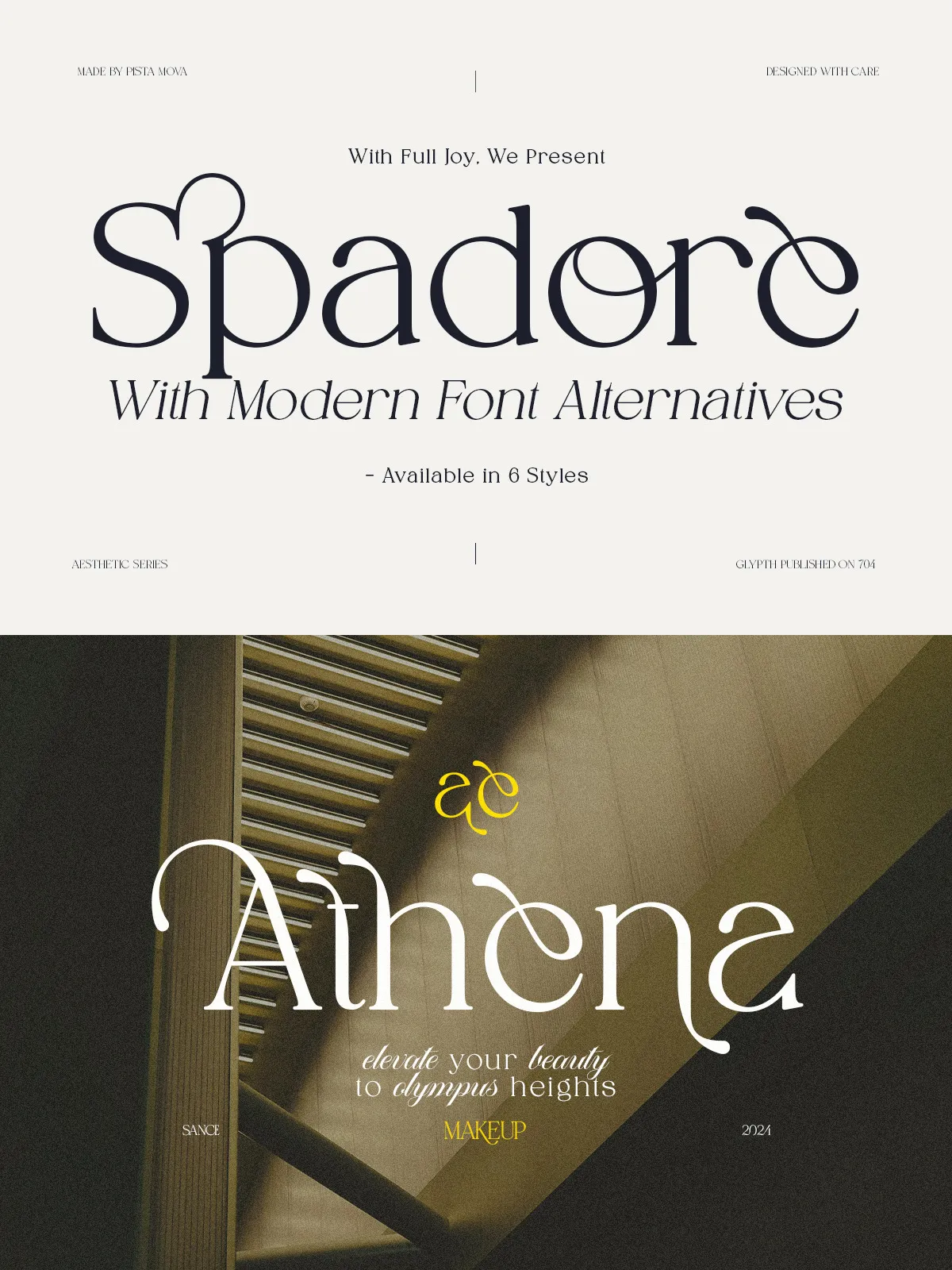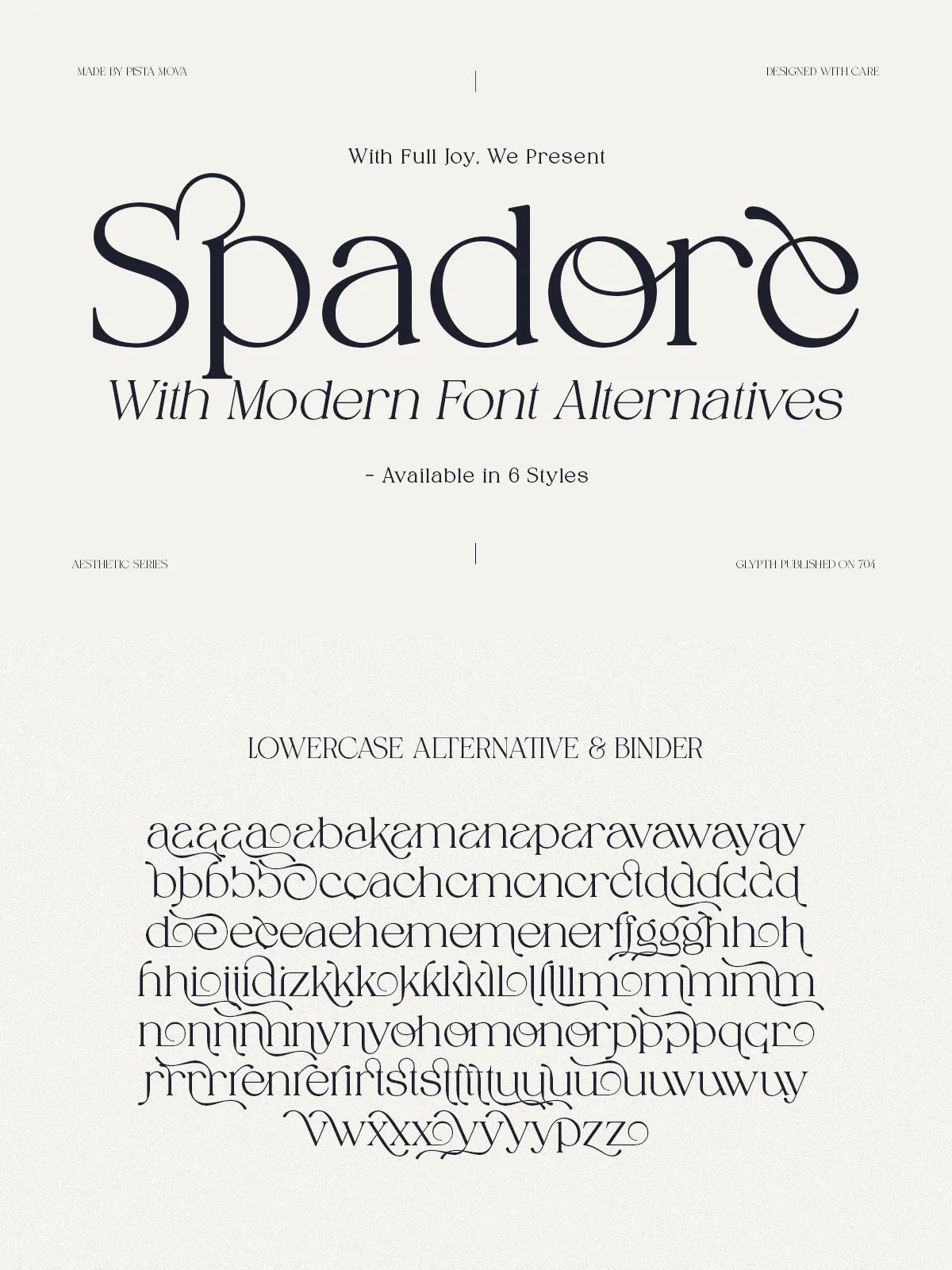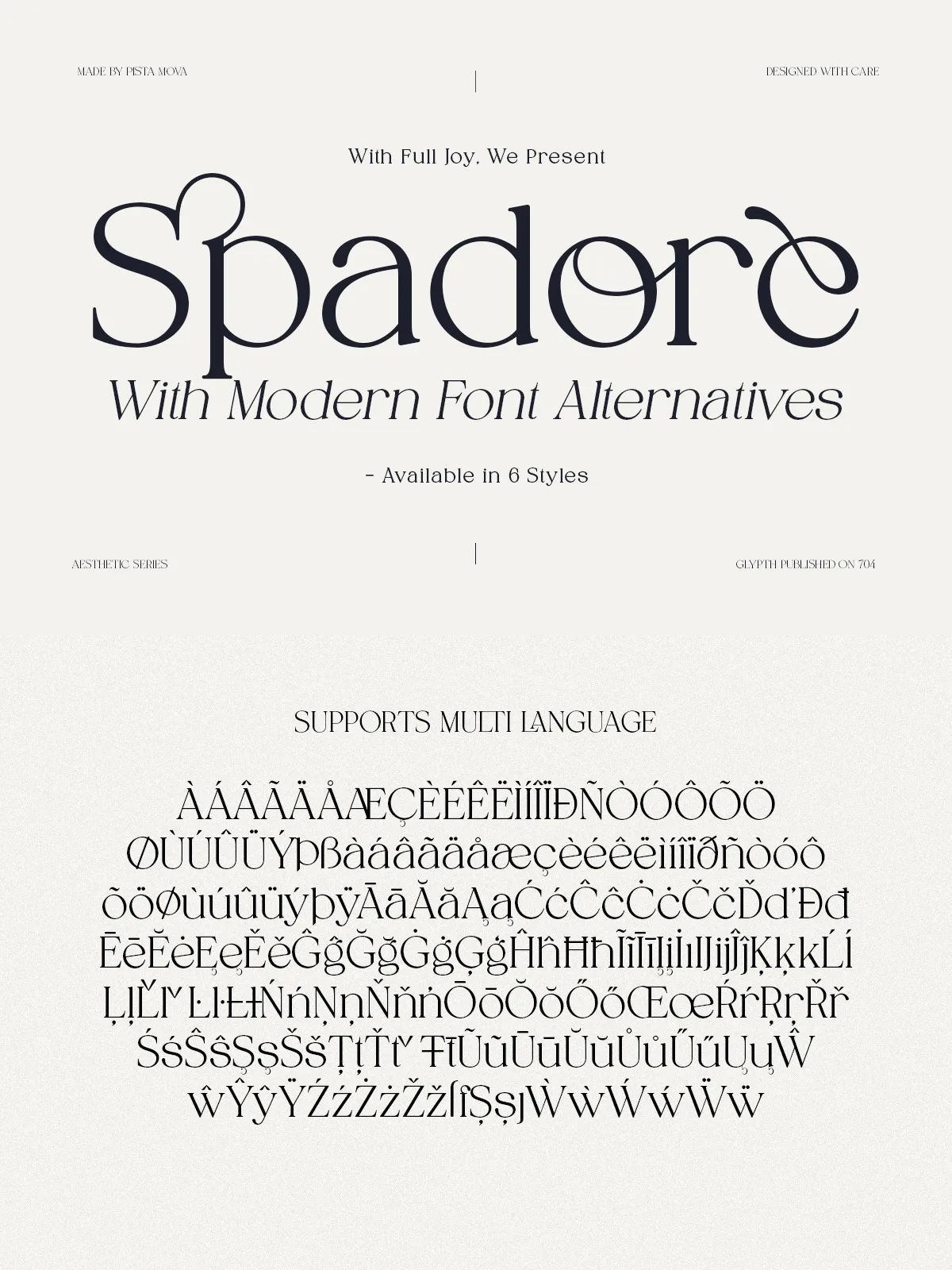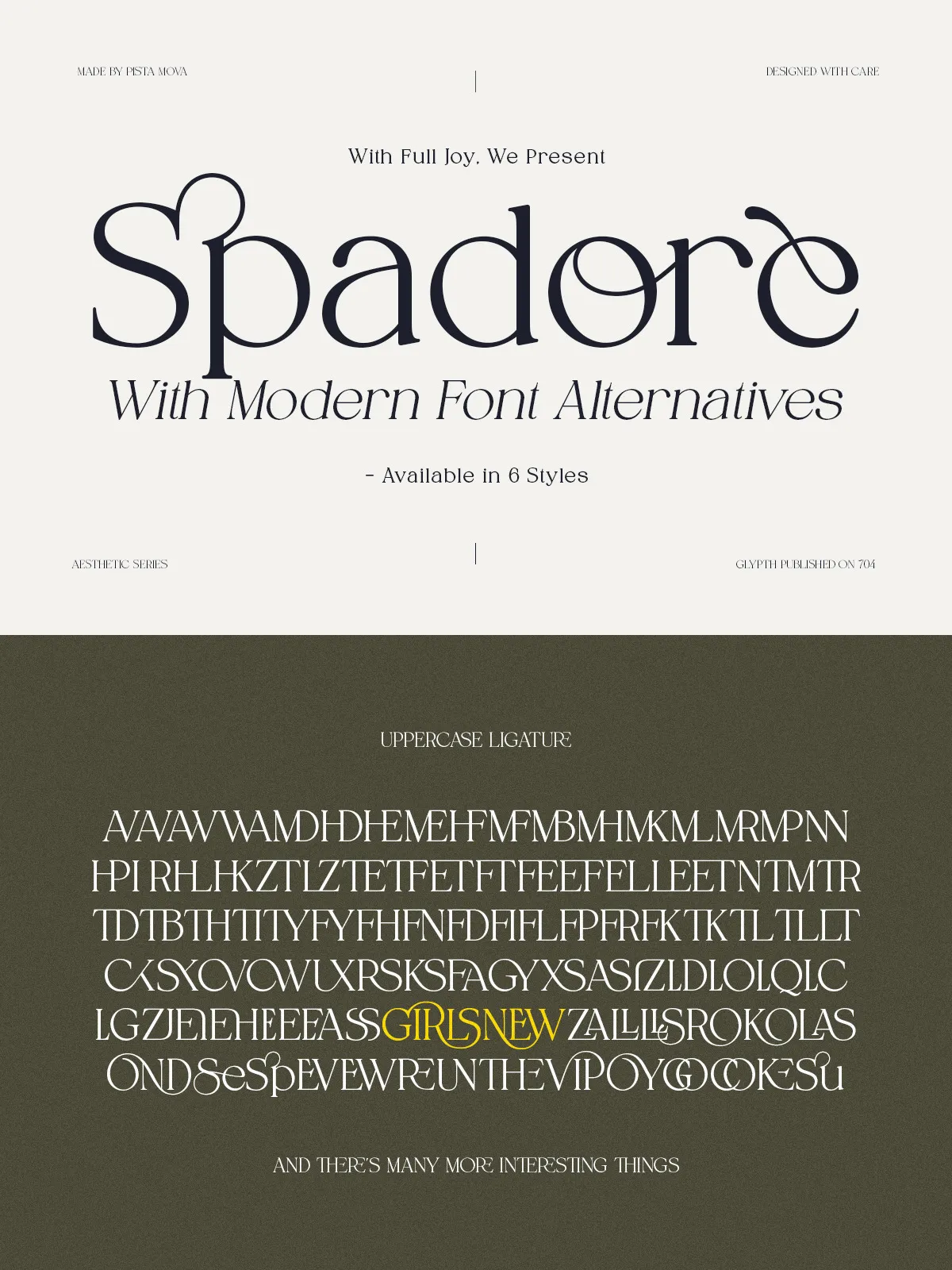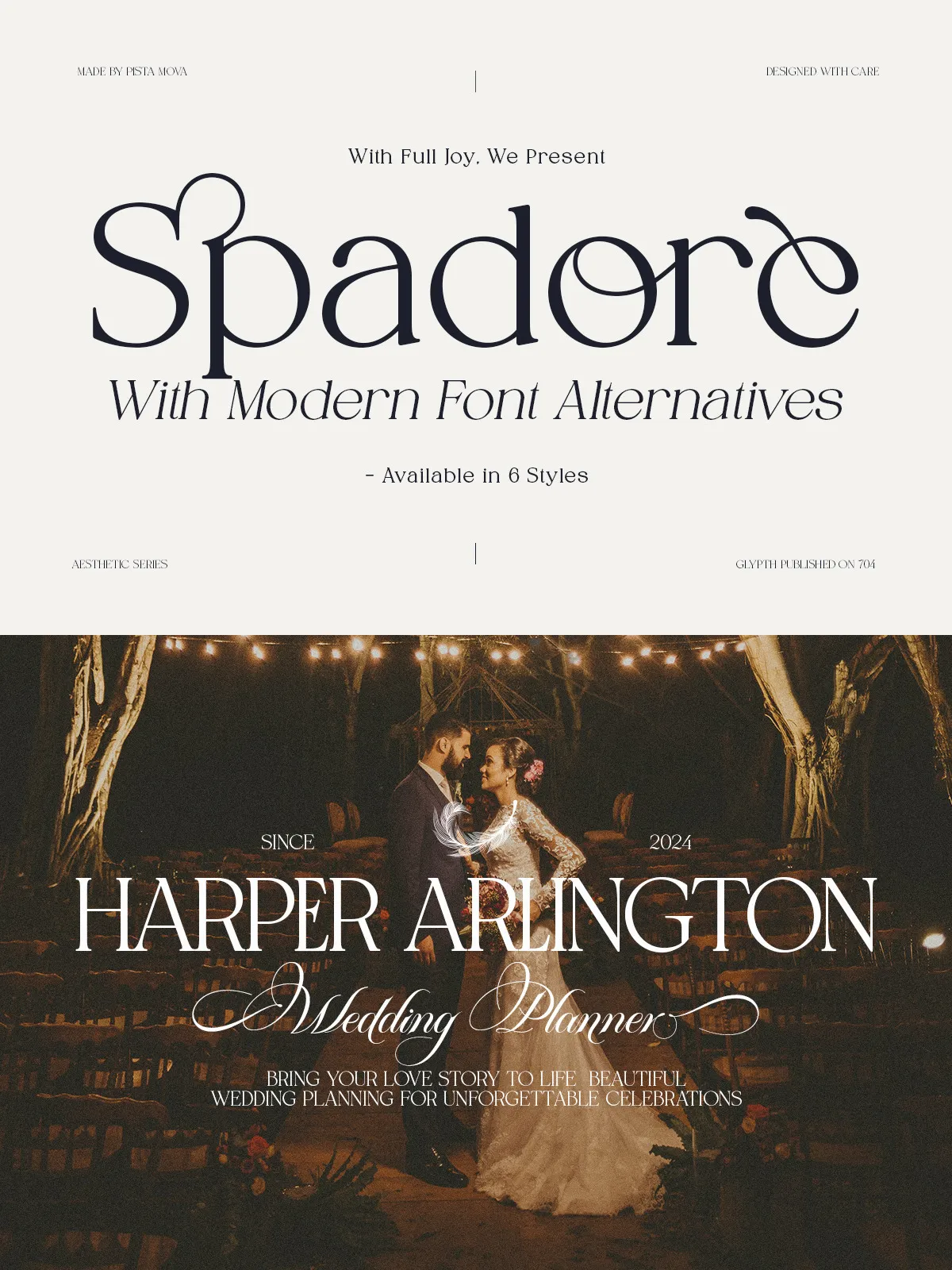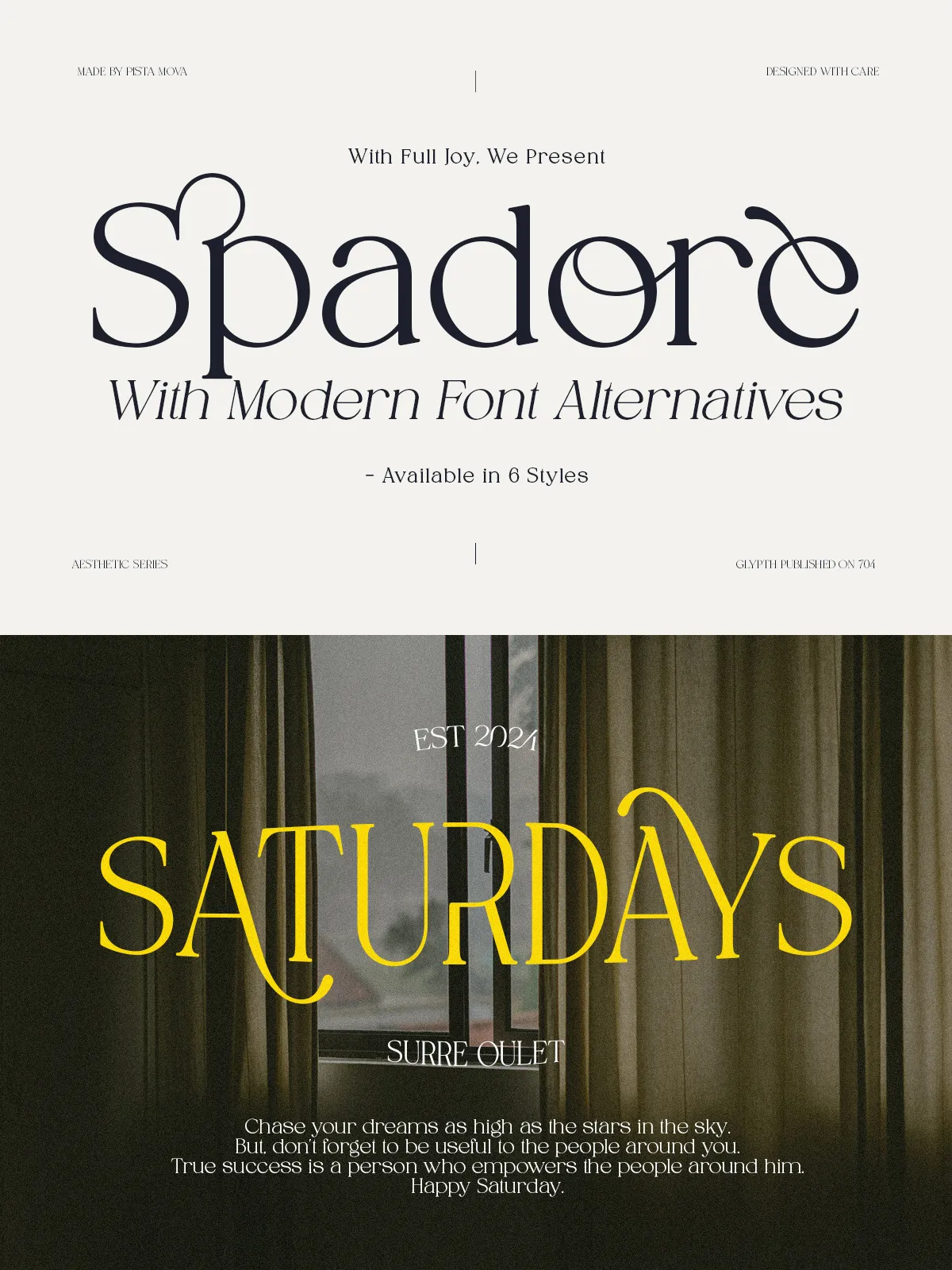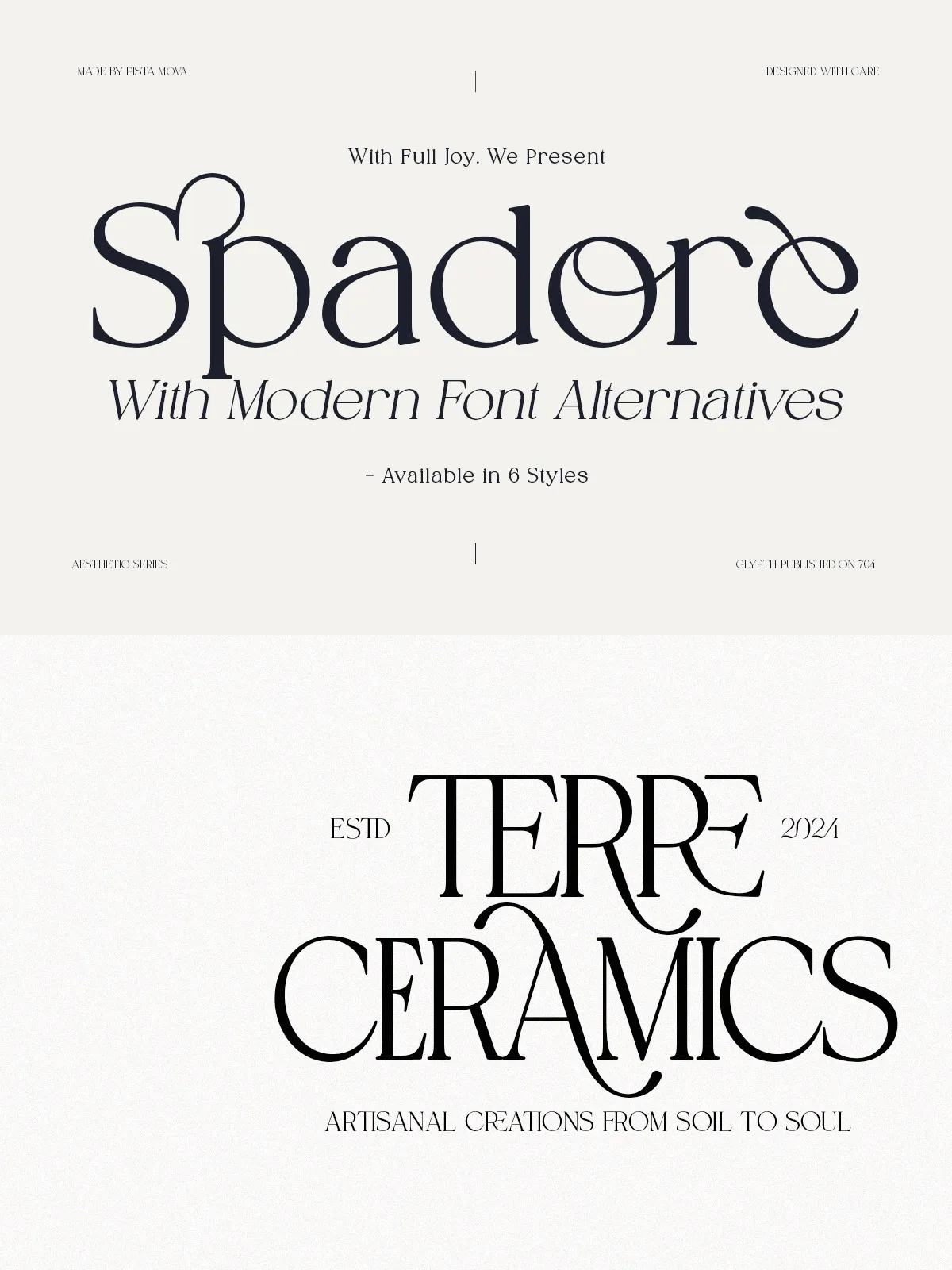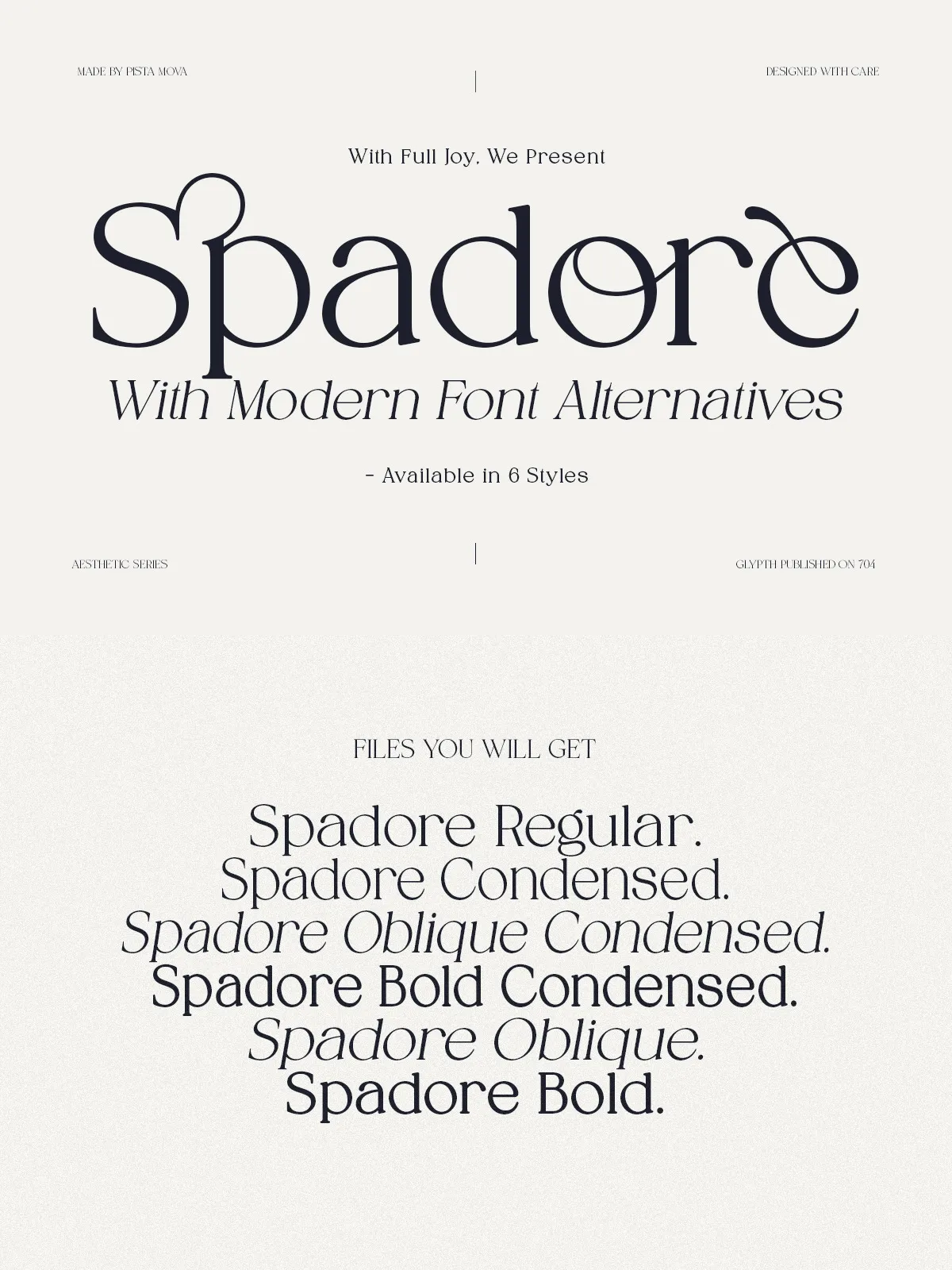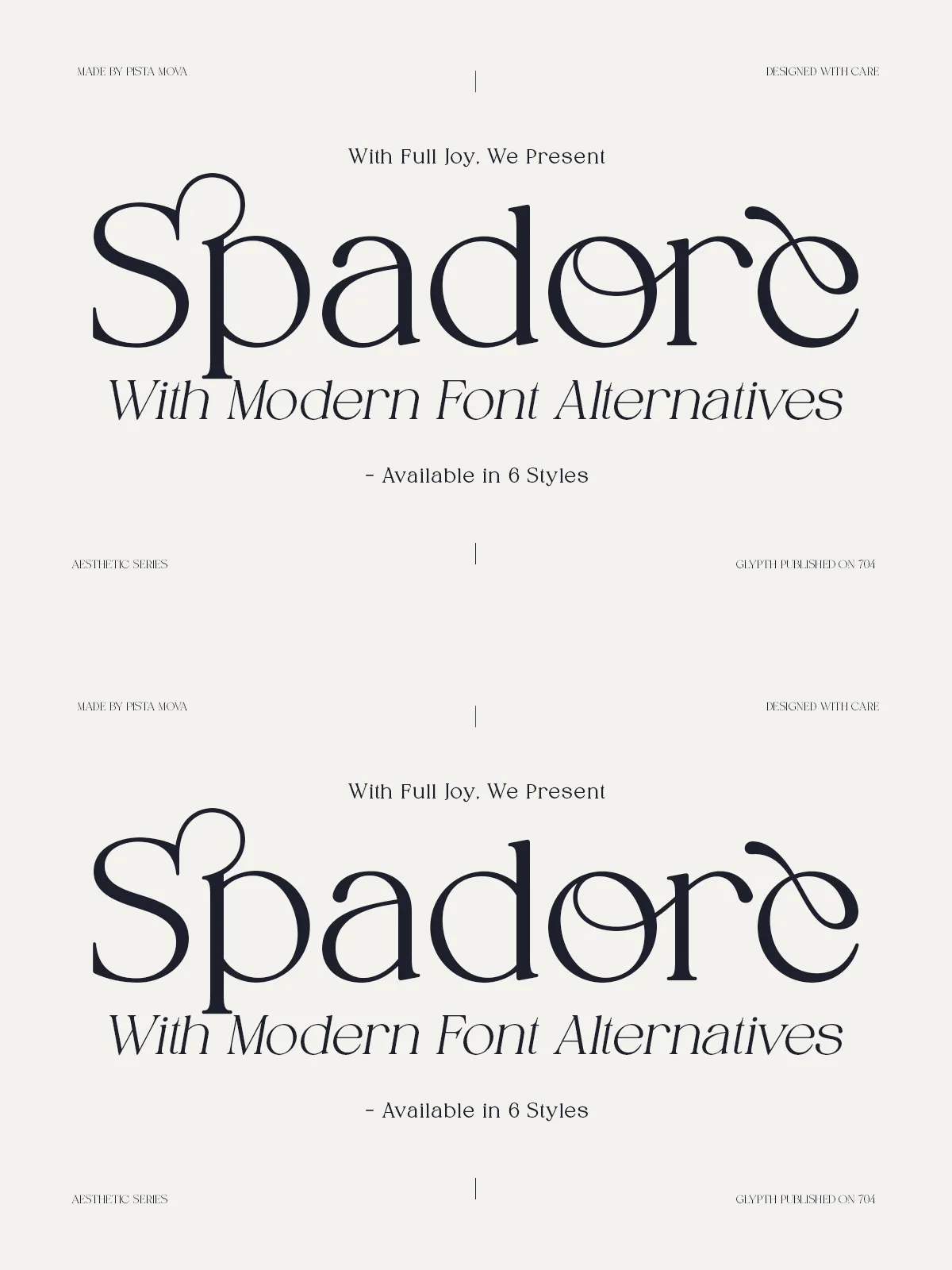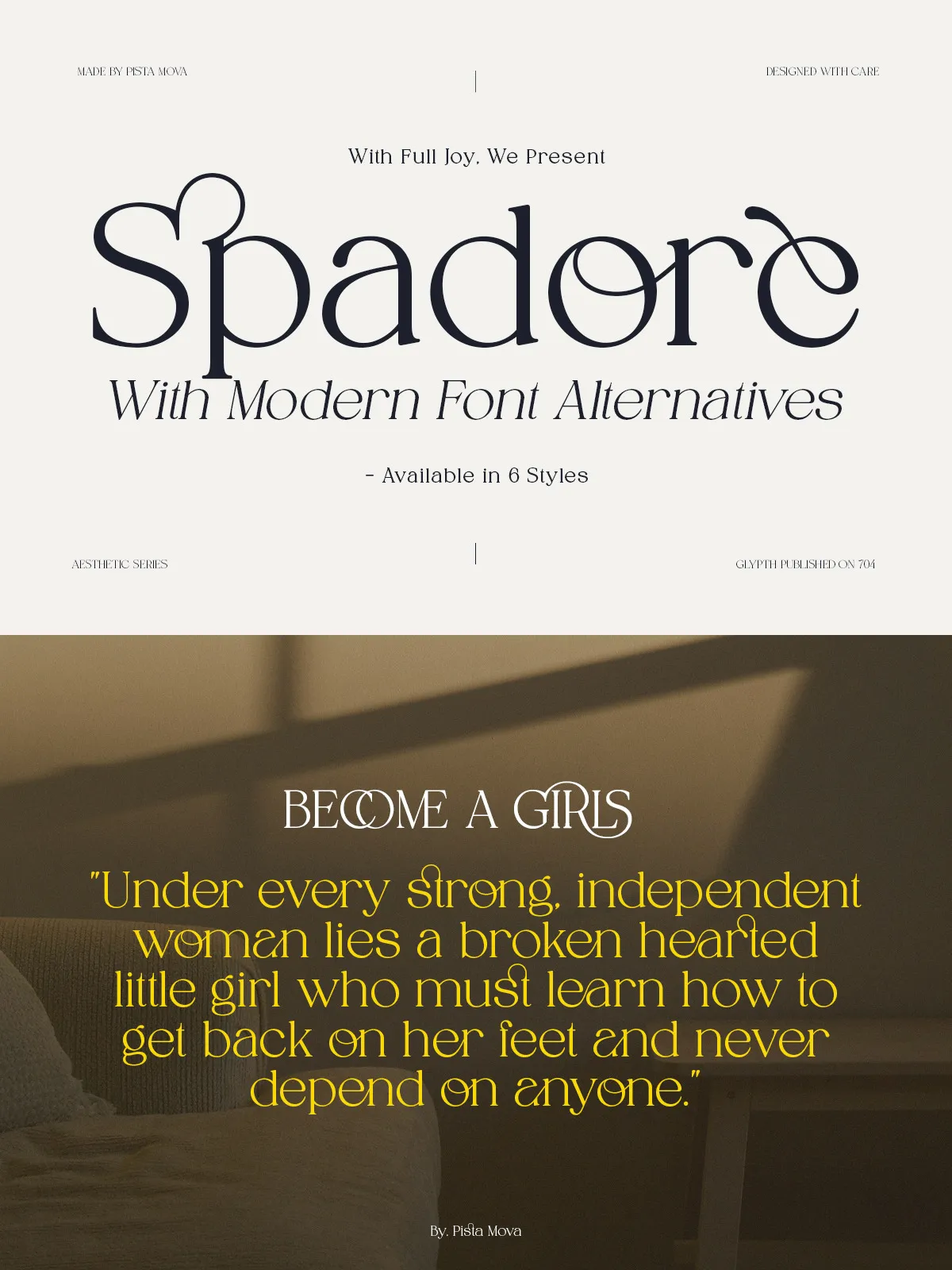
Step into the realm of refined visual storytelling with Spadore — a sophisticated serif typeface that masterfully bridges vintage allure with contemporary design finesse. Crafted for creators who demand distinction, Spadore combines flowing curves, delicate serif details, and a touch of nostalgic charm to deliver a typeface that feels both classic and urgently current.
Whether you’re designing a high-end fashion brand, a luxury beauty product launch, a lifestyle magazine cover, or a premium digital experience, Spadore turns every word into a statement of elegance and intention. It’s not just a font — it’s a design ethos.
Express Yourself with Unmatched Typographic Freedom
Spadore is built for creative control. Gone are the days of rigid, one-size-fits-all fonts. This typeface delivers rich typographic expressiveness through a suite of advanced features designed to fuel originality:
• Multiple Weights & Styles — From sleek Spadore Regular to bold, dynamic Spadore Bold Condensed, and elegant Spadore Oblique, you have the full spectrum of tonal variety at your fingertips.
• Comprehensive Alternates — Access a library of stylistic variants for letters like ‘a’, ‘s’, ‘f’, and ‘g’, allowing you to craft unique, custom typography that stands out.
• Advanced Ligatures — Automatically enhance readability and visual harmony with smooth, professionally crafted ligatures for common letter combinations.
• OpenType Features — Unlock contextual alternates, swash characters, and stylistic sets directly in your design software (Adobe Illustrator, InDesign, Figma, etc.) without complex coding.
• Multilingual Support — Fully equipped with Latin, Greek, and Cyrillic character sets, ensuring seamless global usability across diverse projects.
• Perfect for High-End Branding Projects
From fashion labels to artisanal beauty brands, Spadore transforms your logo, tagline, or website header into a visual masterpiece. Its elegant curves and refined weight distribution command attention in a way that feels luxurious, not loud.
Use it to create:
• Signature brand identities with lasting memorability
• Packaging designs that feel premium and intentional
• Editorial layouts with emotional depth and visual rhythm
• Website headers and hero sections that captivate first-time visitors
• Campaign graphics, print ads, and presentation decks with a timeless feel